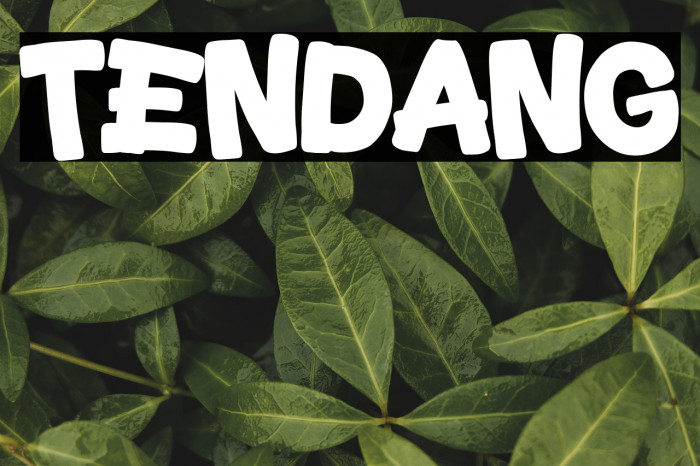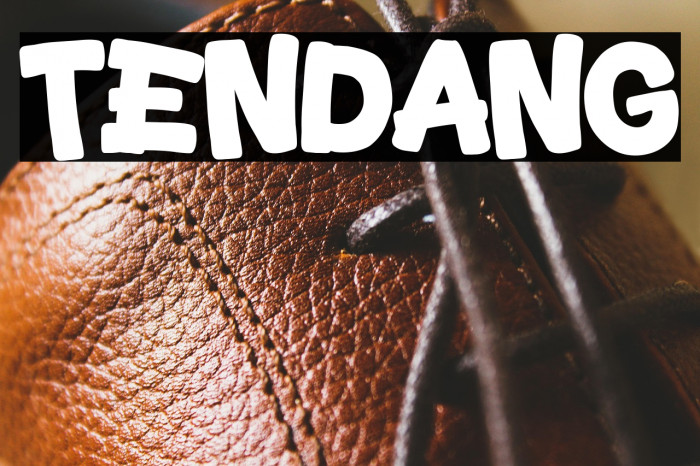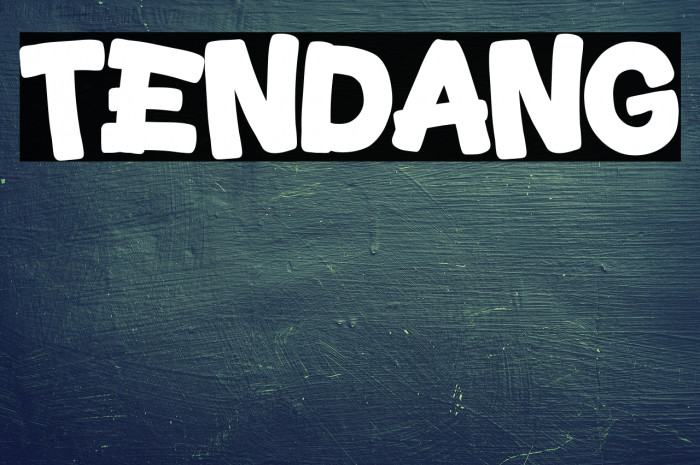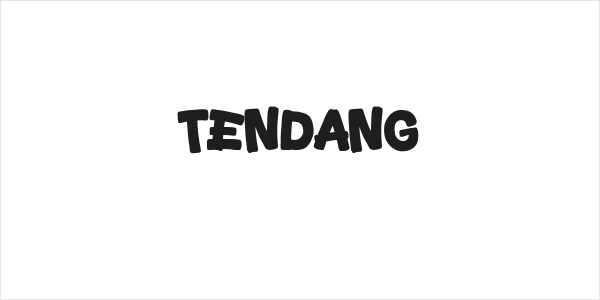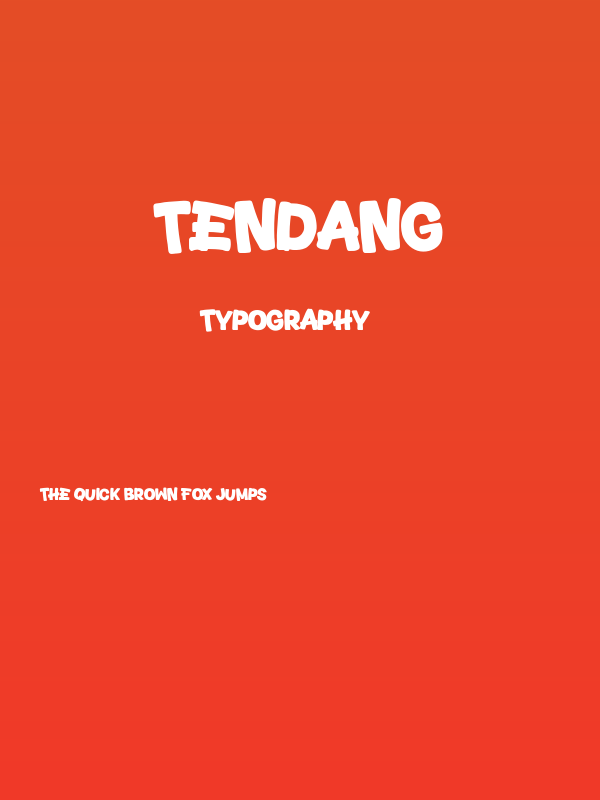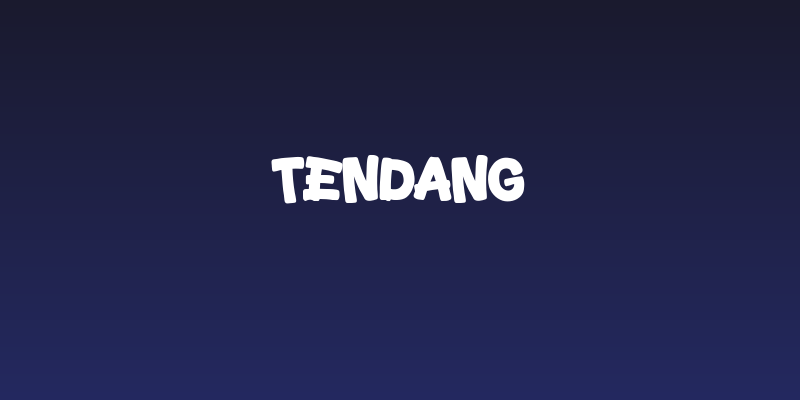
Tendang Font
Tendang Description
This font features a bold, playful style with thick, rounded strokes that give it a cartoonish and friendly appearance. The characters are slightly irregular, adding a whimsical touch, while maintaining legibility. Its boldness and unique character shapes make it stand out, making it suitable for eye-catching designs. The font includes a full set of uppercase and lowercase letters, numbers, and a variety of special characters, providing versatility for different design needs.
| Overall Style | Playful, Cartoonish |
| Proposed Projects | Ideal for children's books, comic strips, playful branding, and posters. |